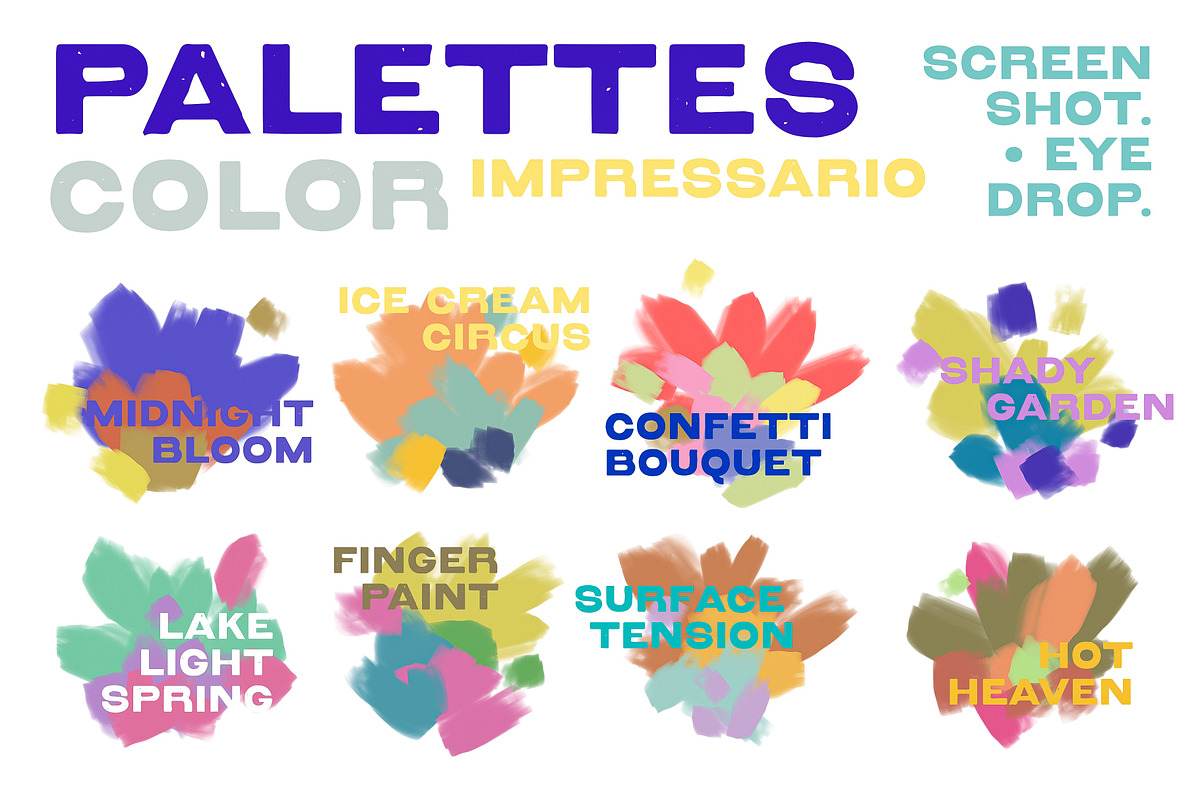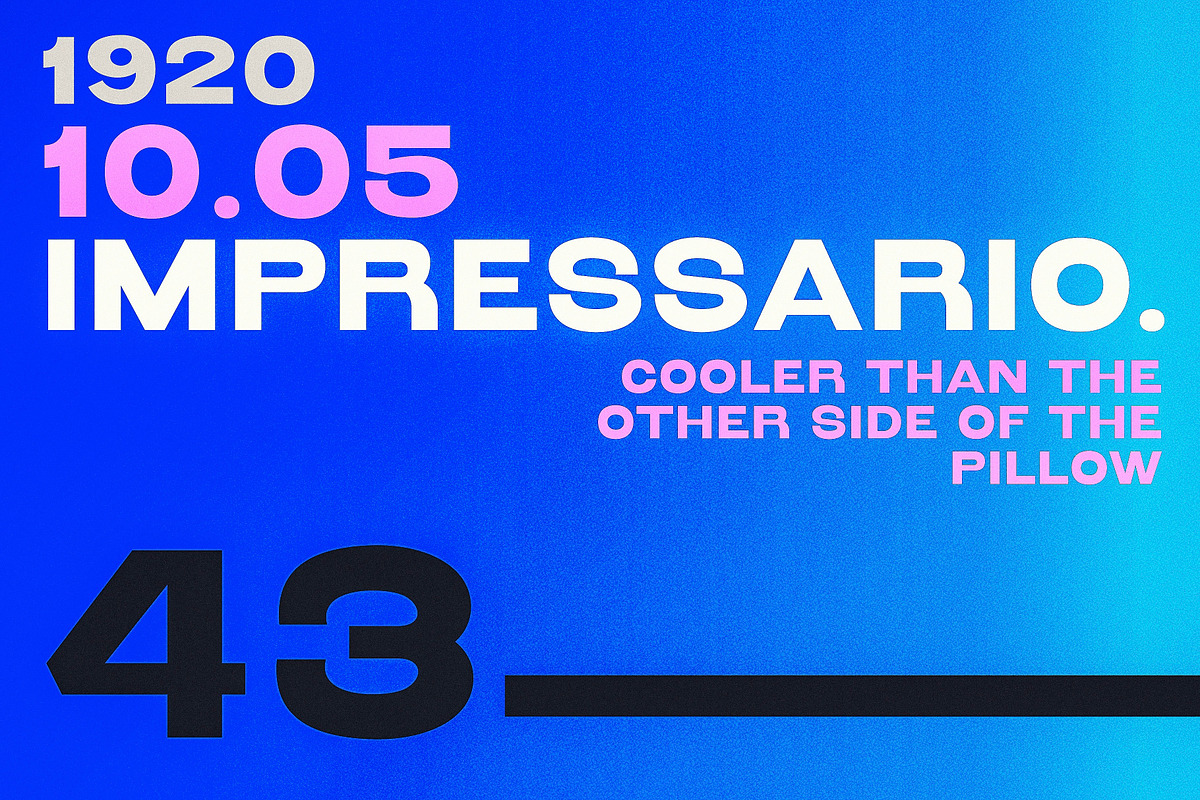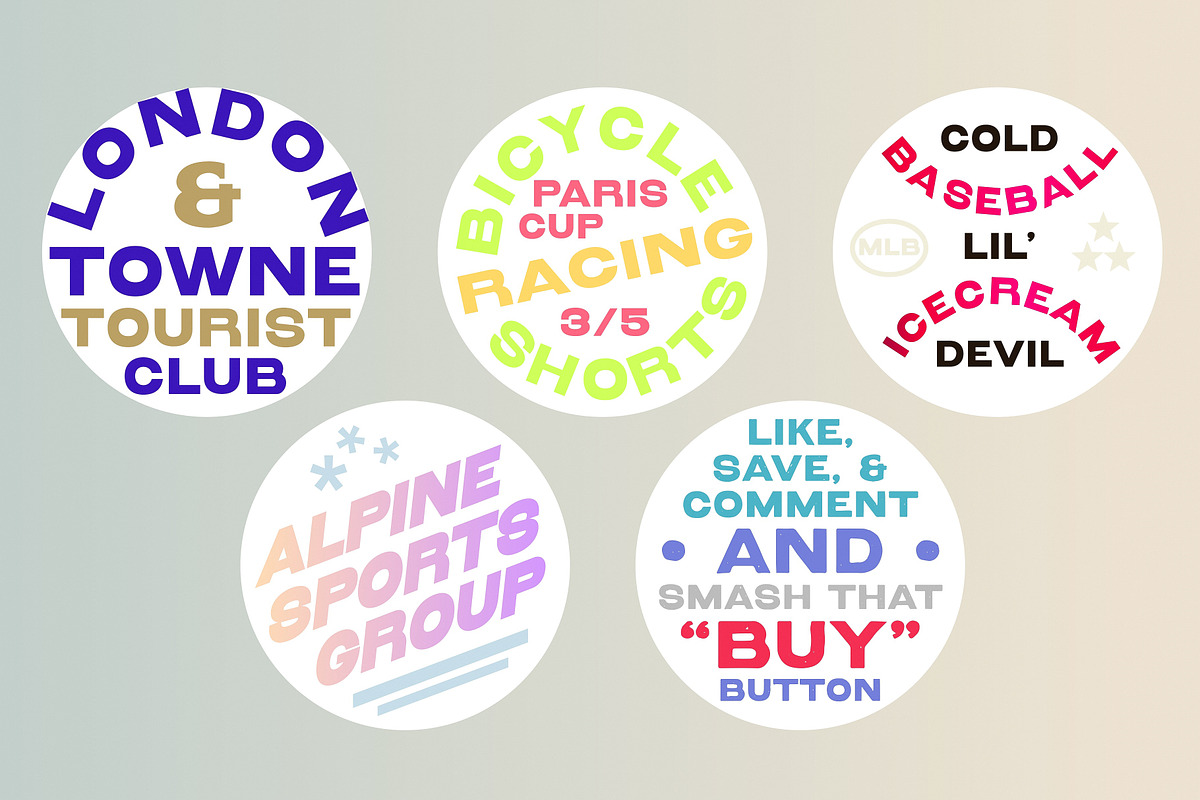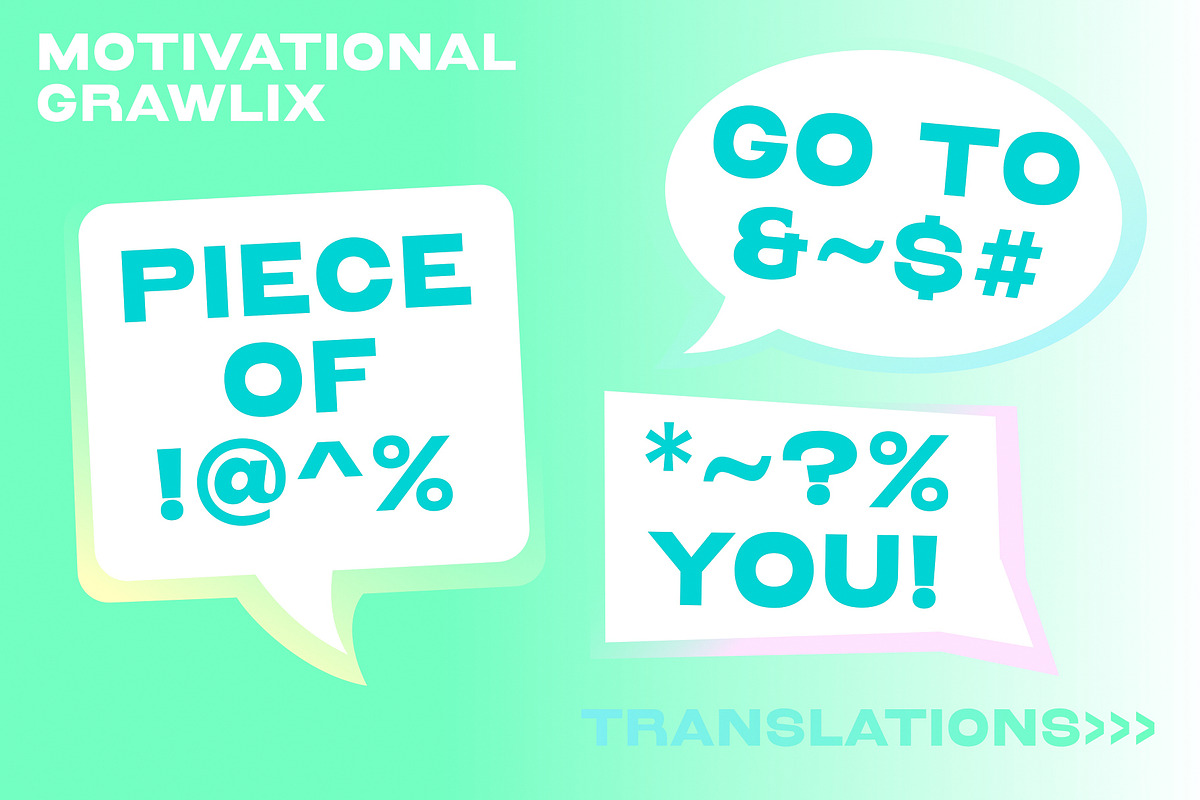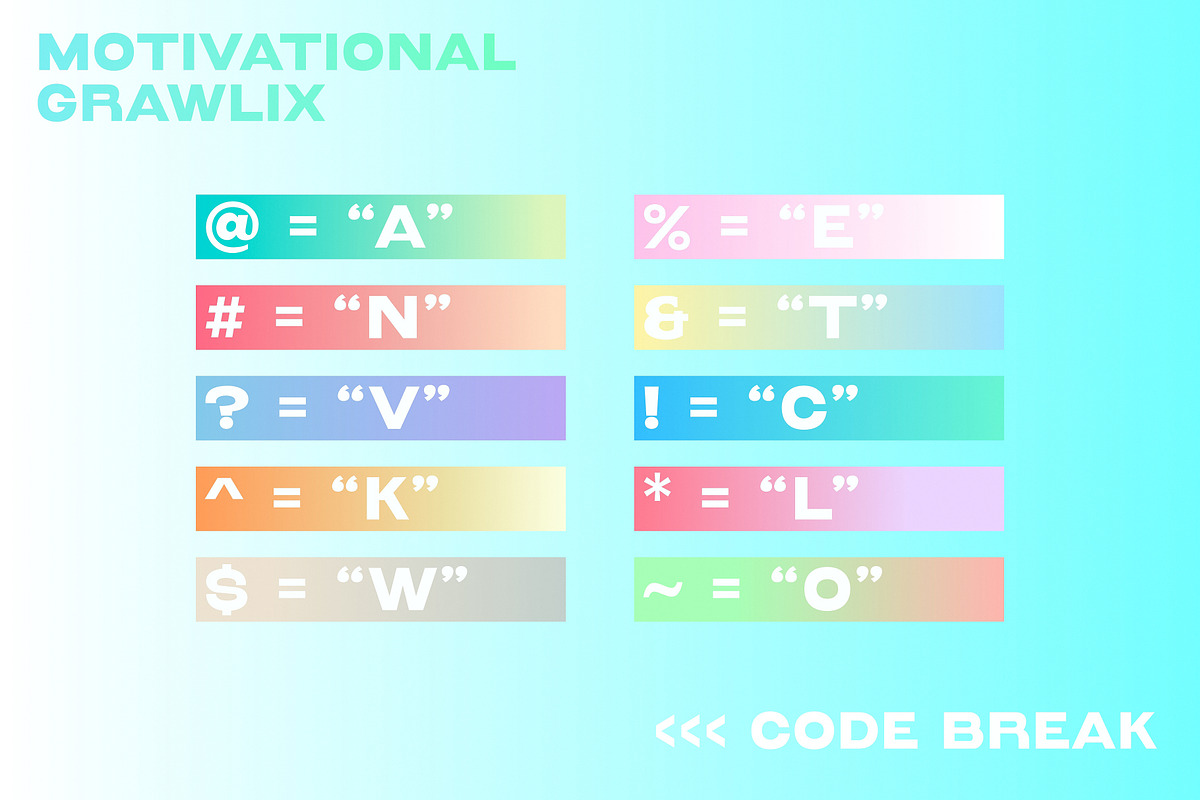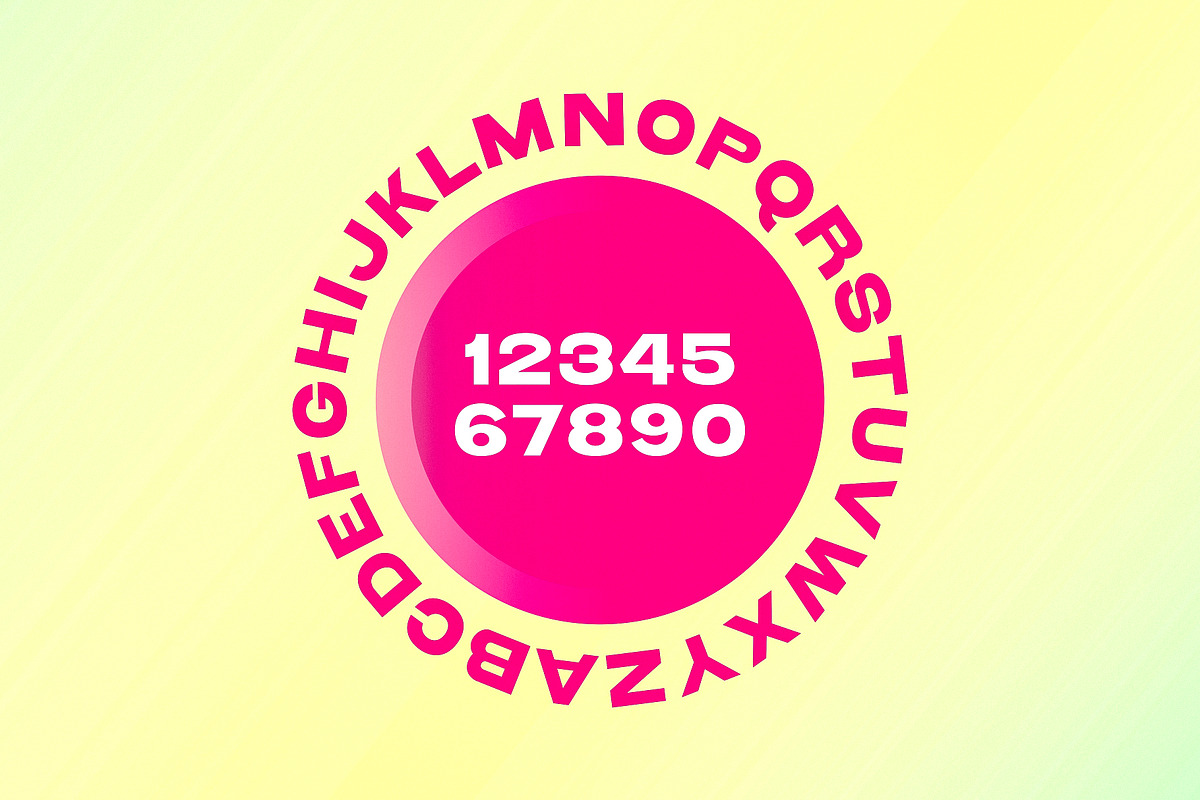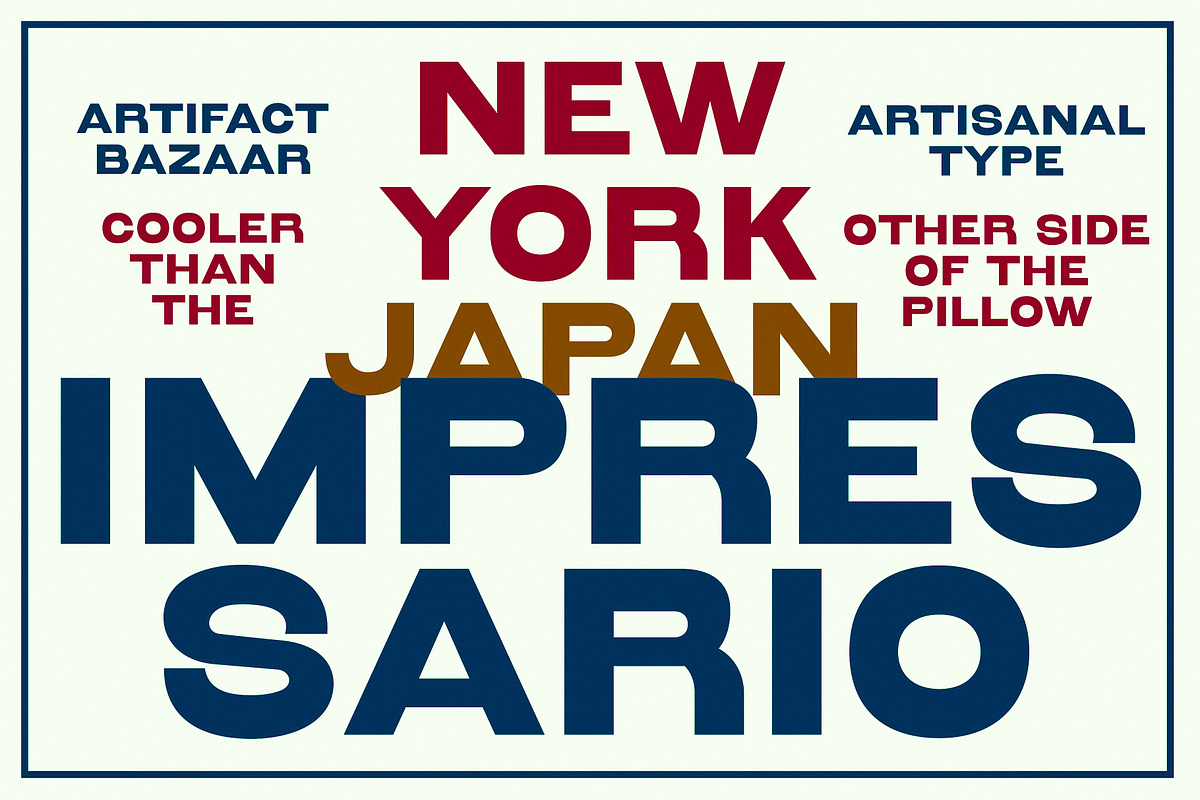
Impressario | Vintage Grotesk
One foot in tradition, one foot in the modern, while strutting into your font bank. Shines in titles, sparkles in branding, glows in badgework.
- 2 Styles: Regular, Rough
- Texture alternates in the upper and lower case keystrokes
- All punctuation and special characters